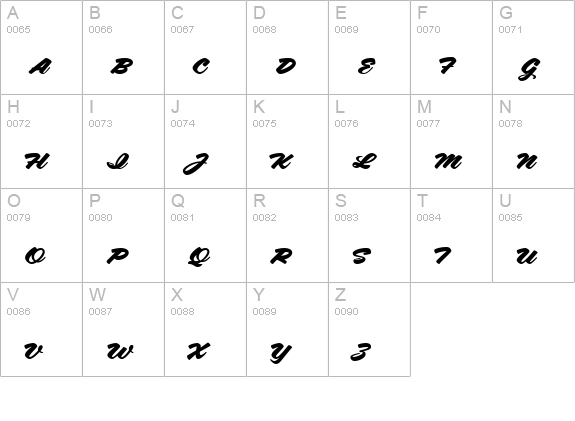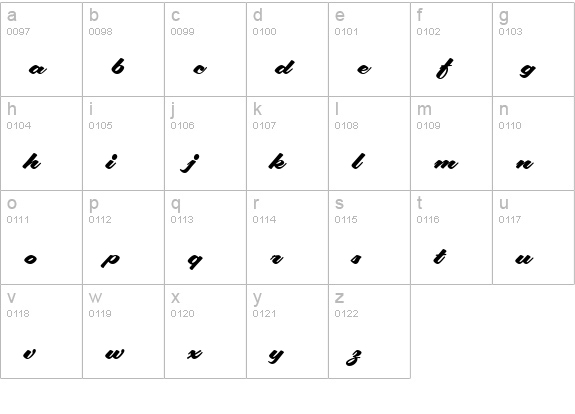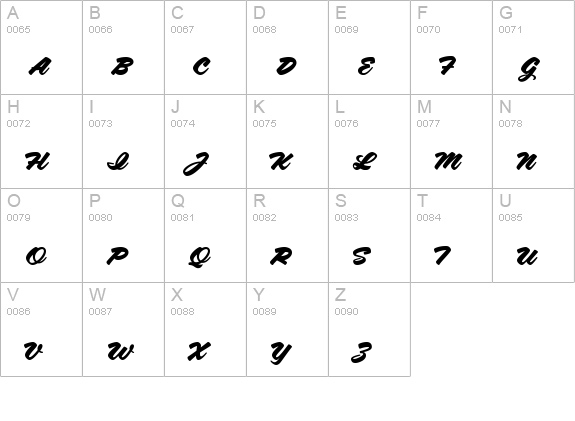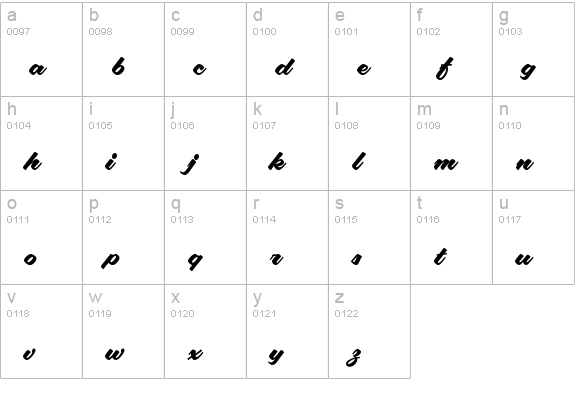
Aloha Script Regular Font Details
Aloha Script Regular is the standard, neutral variant in the Aloha typeface family \xE2\x80\x94 well suited to general body text, paragraphs, and standard typographic work.
Aloha Script Regular font is a charming and elegant script typeface that exudes warmth and friendliness. Its flowing strokes and decorative flourishes give any design a touch of sophistication and style. This versatile font is perfect for various projects such as invitations, greeting cards, branding, and more. The best part is that Aloha Script Regular font is available for free download at FontsMarket.com. You can easily access this beautiful font and add a touch of Hawaiian charm to your projects without any cost. Embrace the spirit of aloha and elevate your designs with this delightful script font.